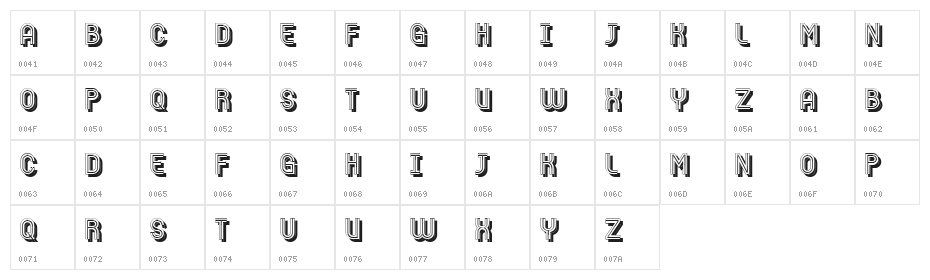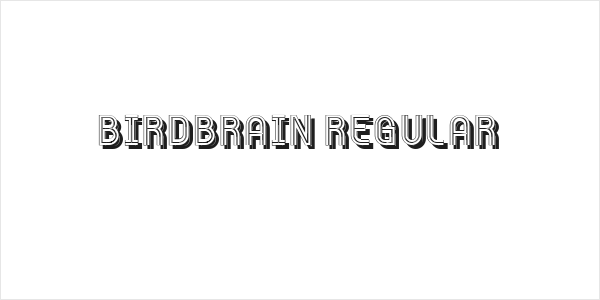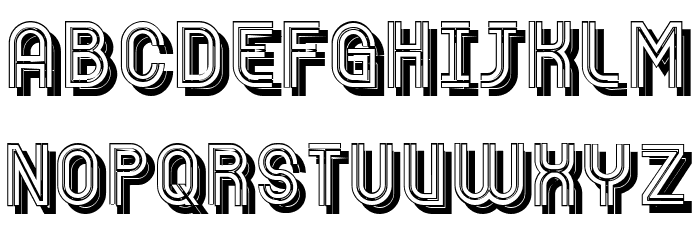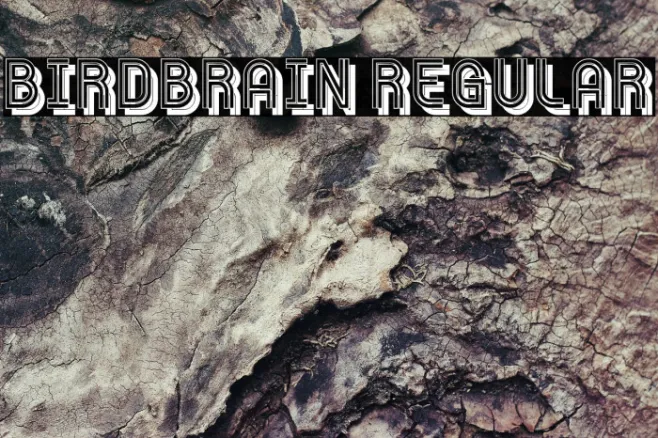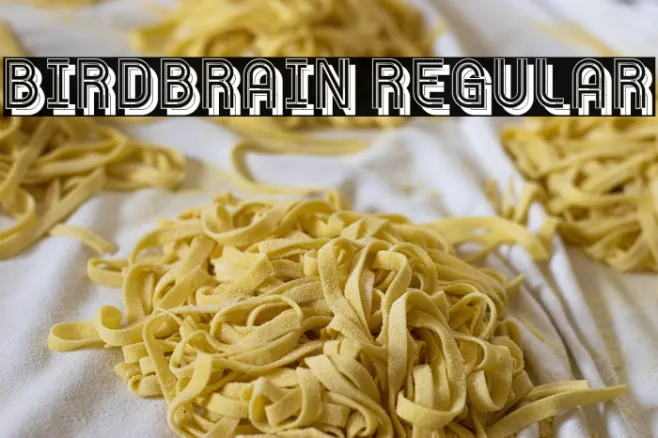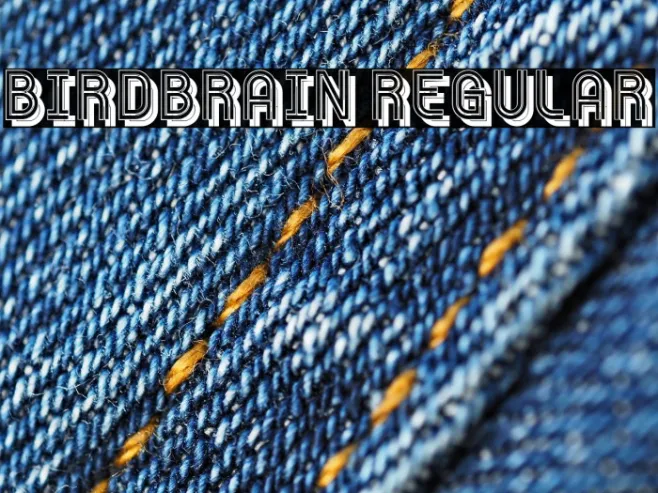
Birdbrain Regular Font
Birdbrain Regular Description
This font features a bold, layered design with a distinct 3D effect, achieved through multiple outlines and shadows. The uppercase letters are structured with strong geometric shapes, giving them a modern and dynamic appearance. The font's intricate detailing and shadowing create a sense of depth, making it stand out in any design. Its unique style is both eye-catching and versatile, suitable for a variety of creative applications. The font's boldness and complexity make it ideal for projects that require a strong visual impact.
| Proposed Projects | Ideal for posters, logos, headlines, and any design needing a bold statement. |